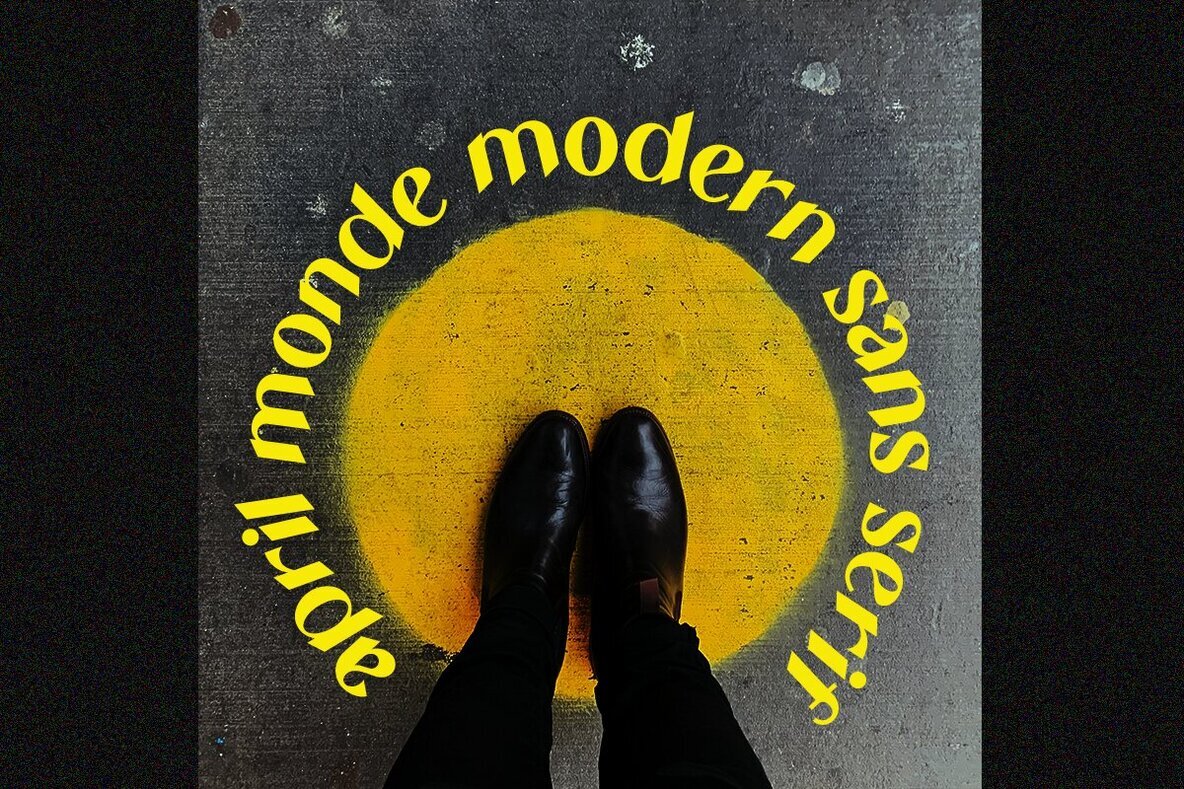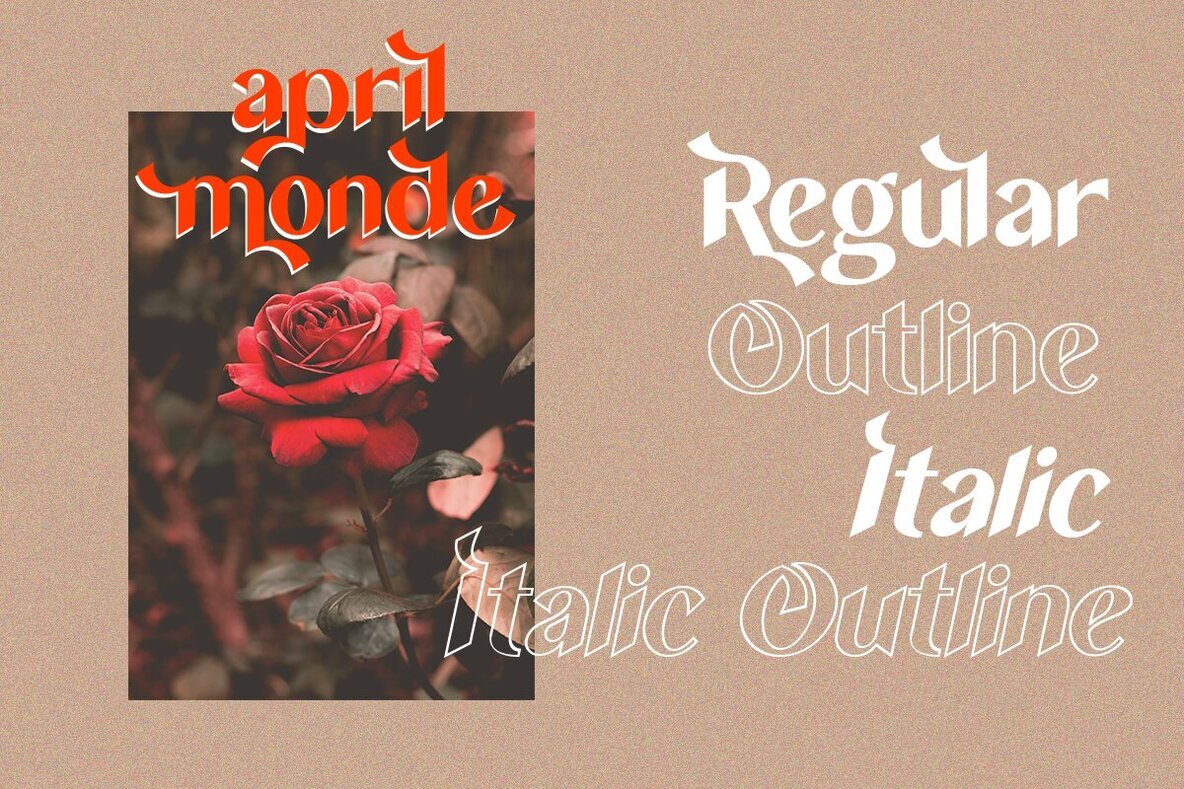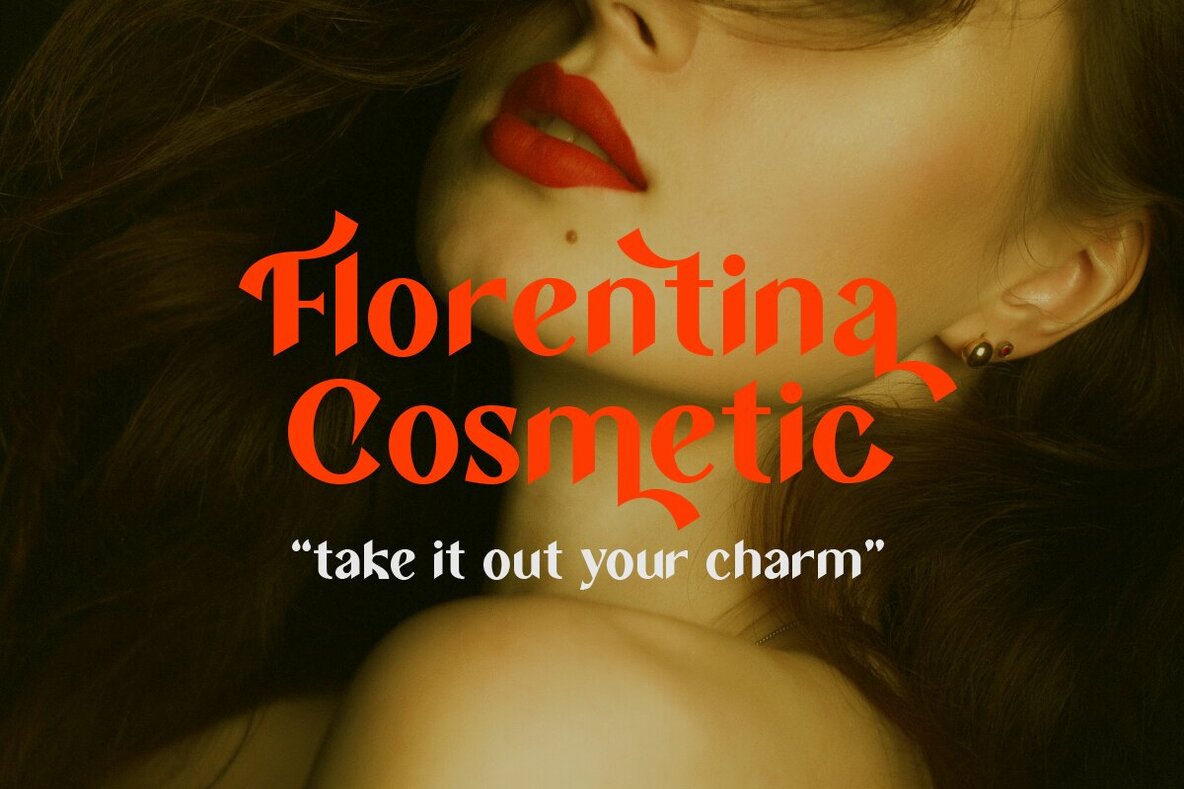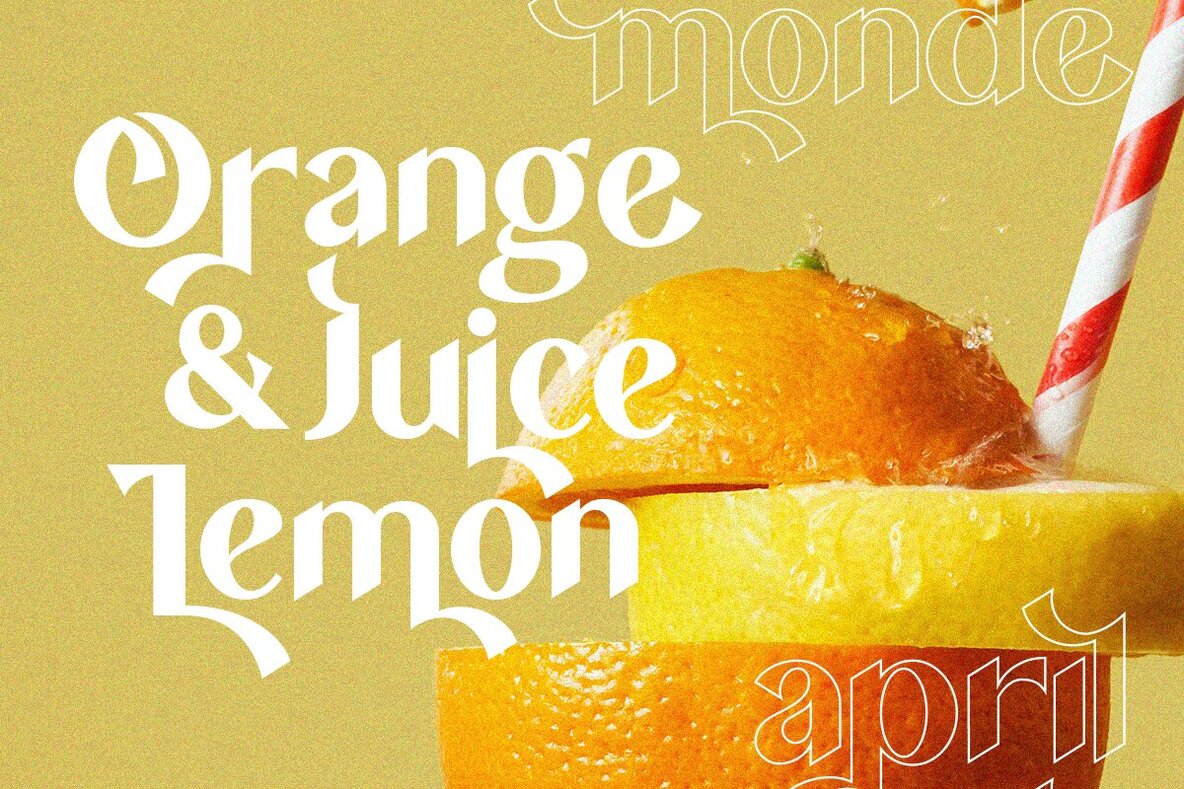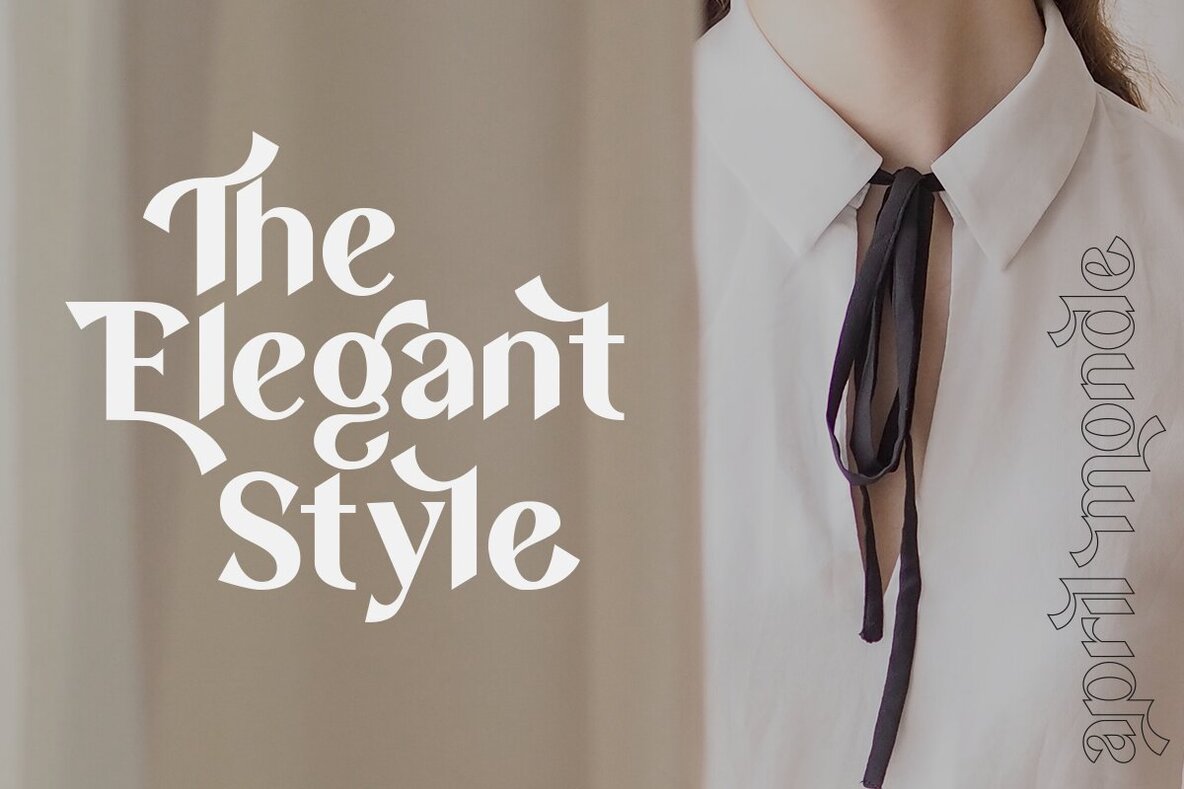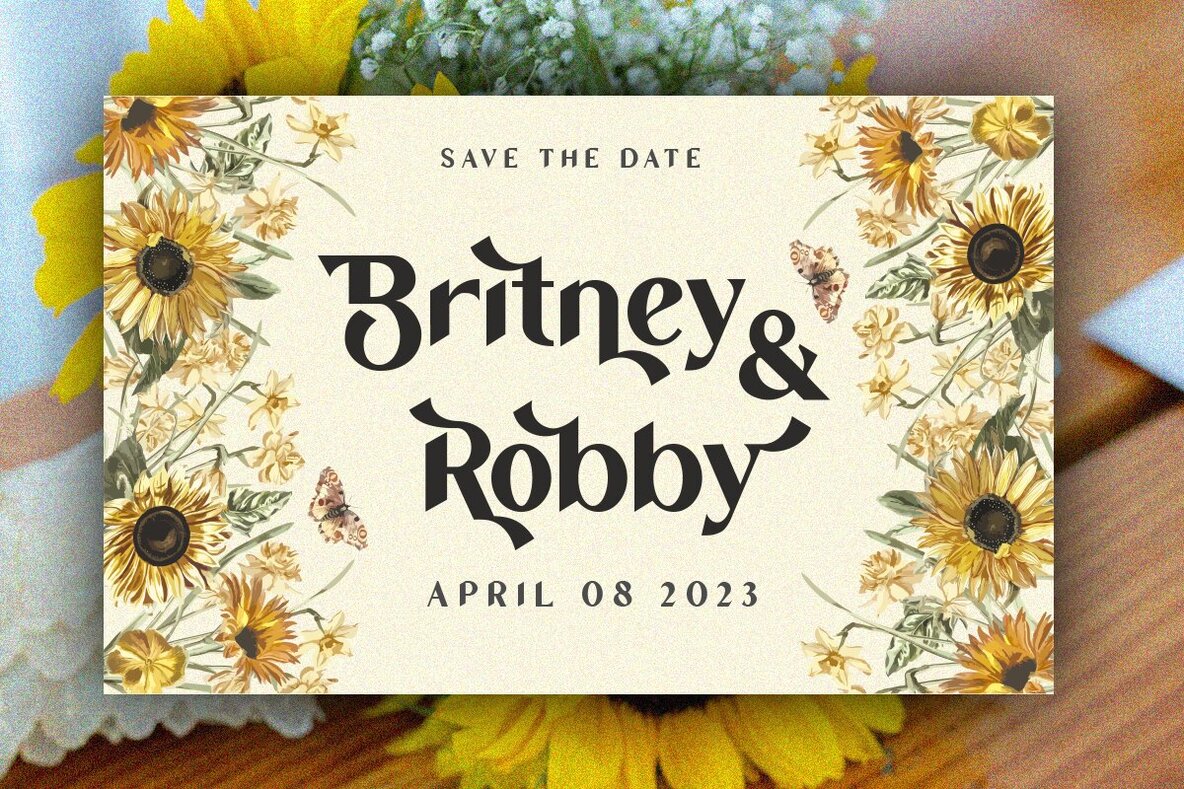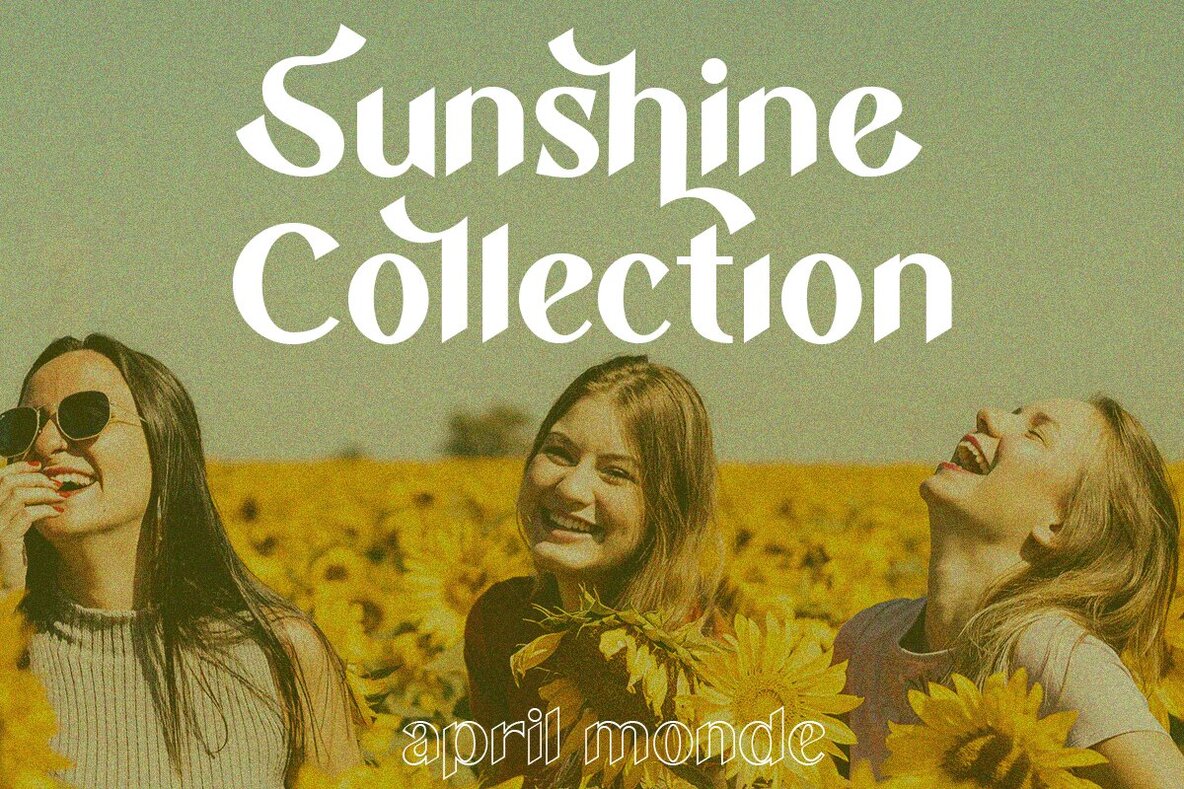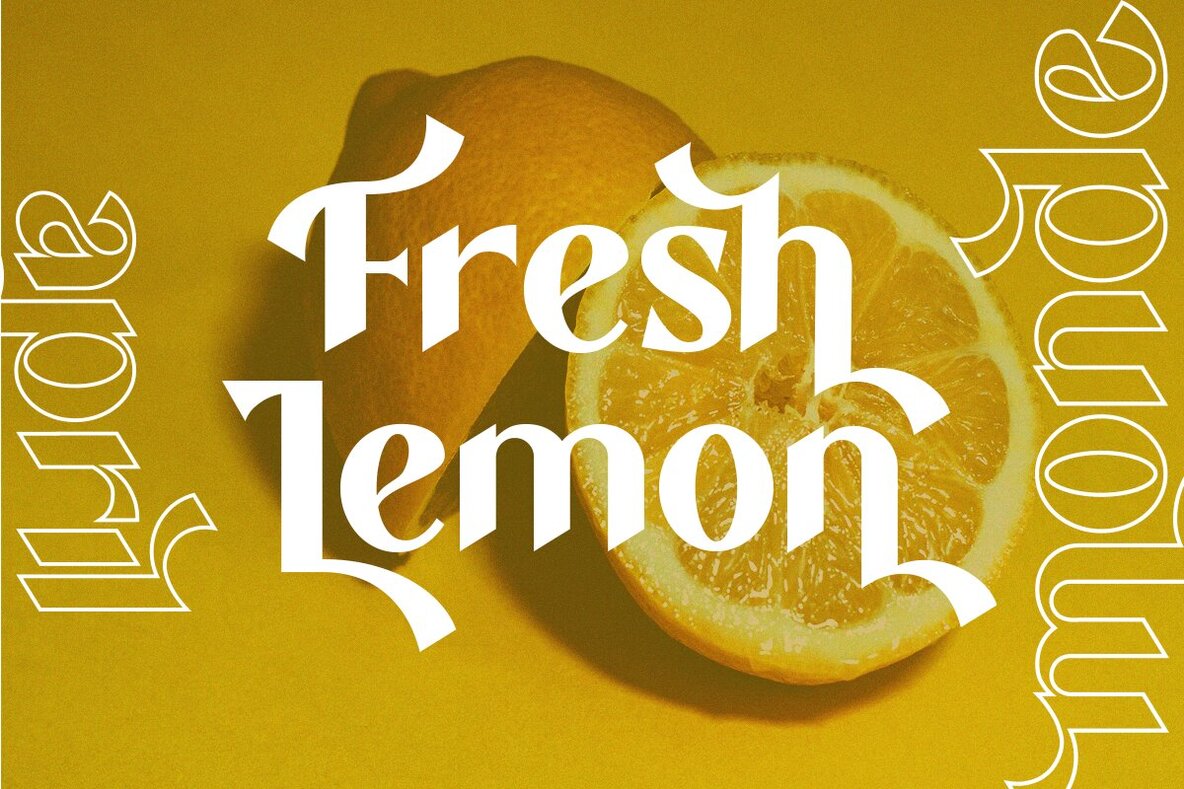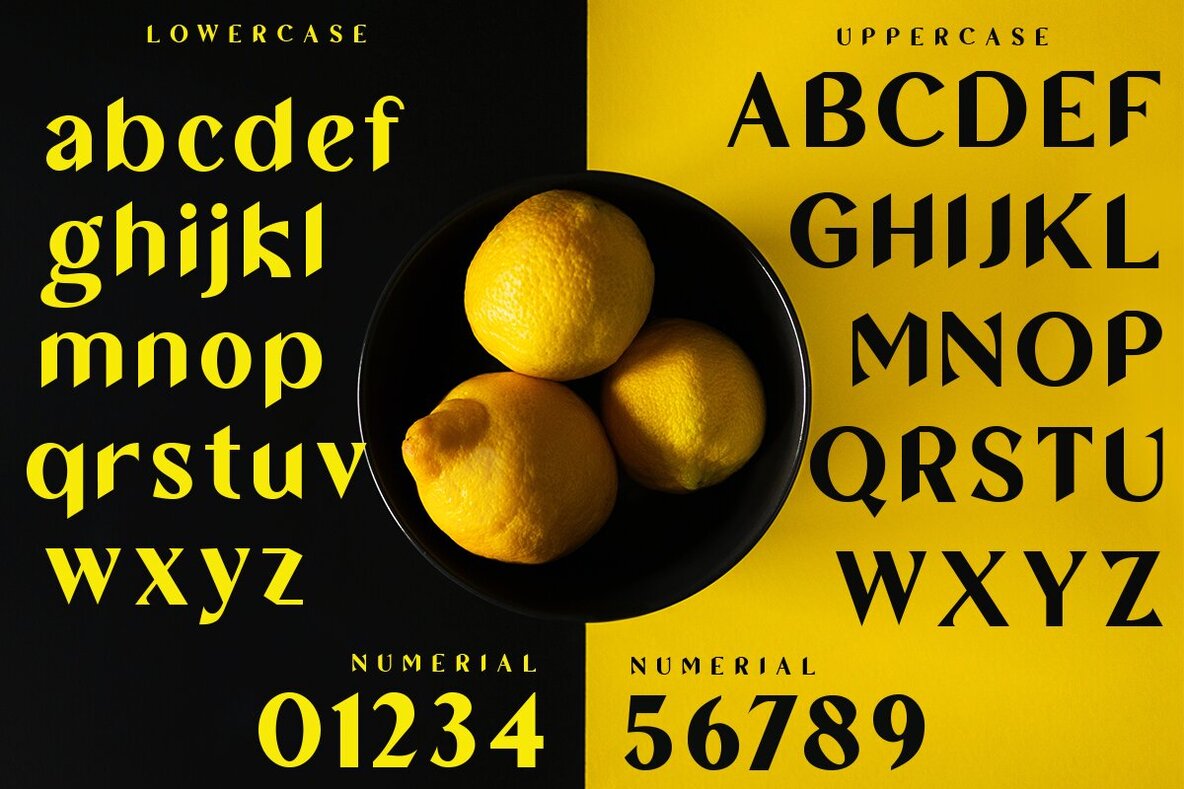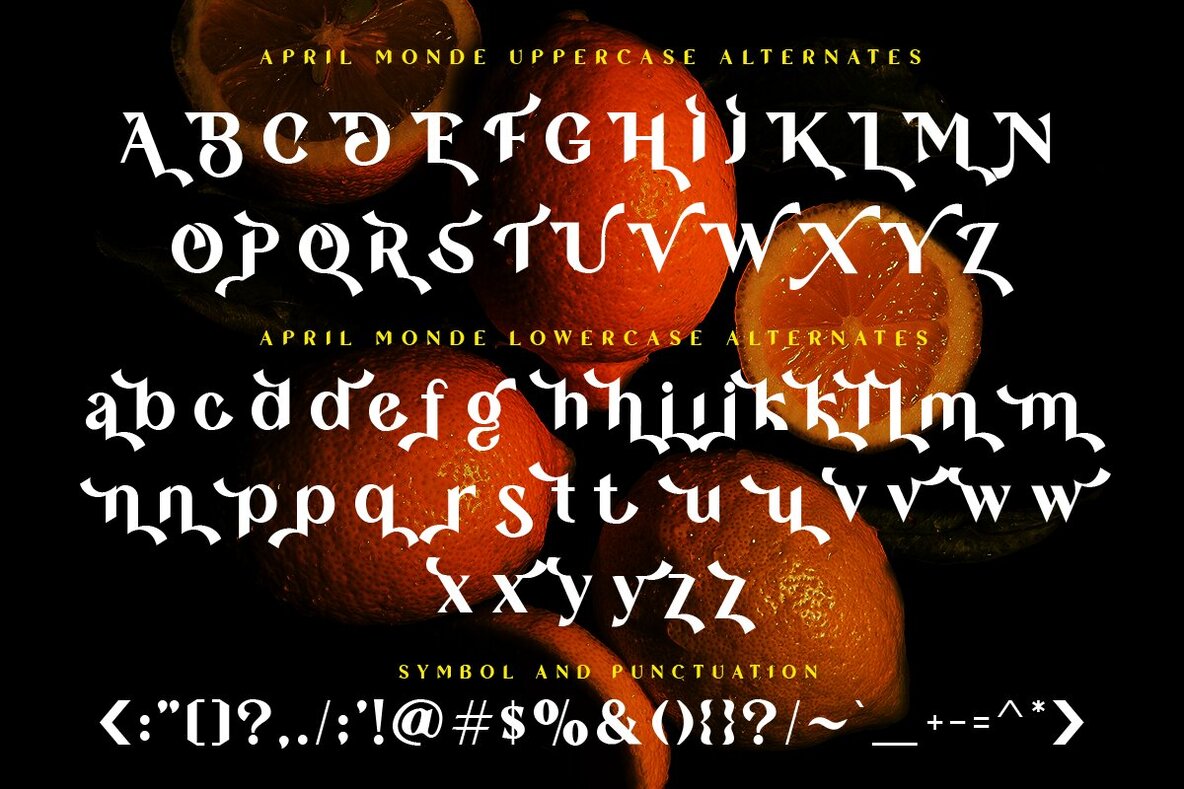
April Monde Font
April Monde is a modern sans serif typeface featuring regular, italic, and outline styles. This elegant font offers a unique design that is sure to capture the audience's attention. Along with its uniqueness, the font carries a luxurious yet simple character, enhancing the charm and sophistication of any design. April Monde is ideal for projects focused on elegance, luxury, romance, fashion, and more.April Monde: Modern Sans Serif Typeface